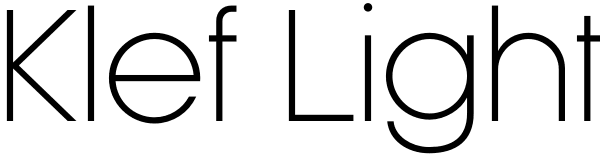
Klef
Klef is a highly legible, geometric text and display font. Inspired by classic sans-serifs Futura and Avant Garde, this elegantly minimal typeface is available in a comprehensive family of seven weights. Klef features an expanded character set to...